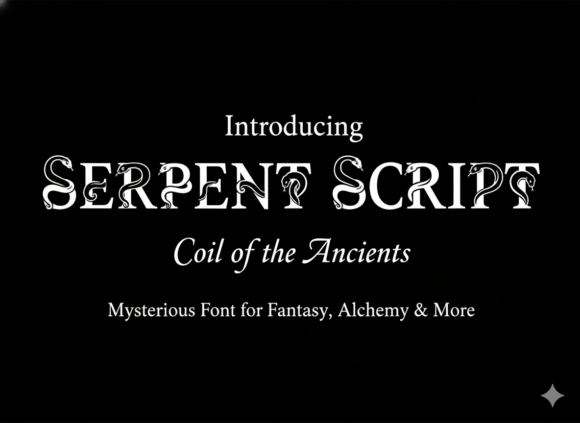
Introduction to Serpent Script Font
Unravel the mysteries of the deep with ‘Serpent Script’ – a mesmerizing font that entwines the ancient power and enigmatic beauty of snakes into every character.
Perfect for fantasy, alchemy, magical themes, occult designs, and captivating storytelling Every character in the Serpent Script typeface is entwined with serpentine motifs, creating an intricate, scaly texture that feels alive on the page.
Key Features of Serpent Script Font
Why Choose Serpent Script Font?
Serpent Script Font offers exceptional quality and versatility, making it a valuable addition to your design toolkit. Whether you’re creating for personal projects or commercial use, Serpent Script Font delivers professional results.